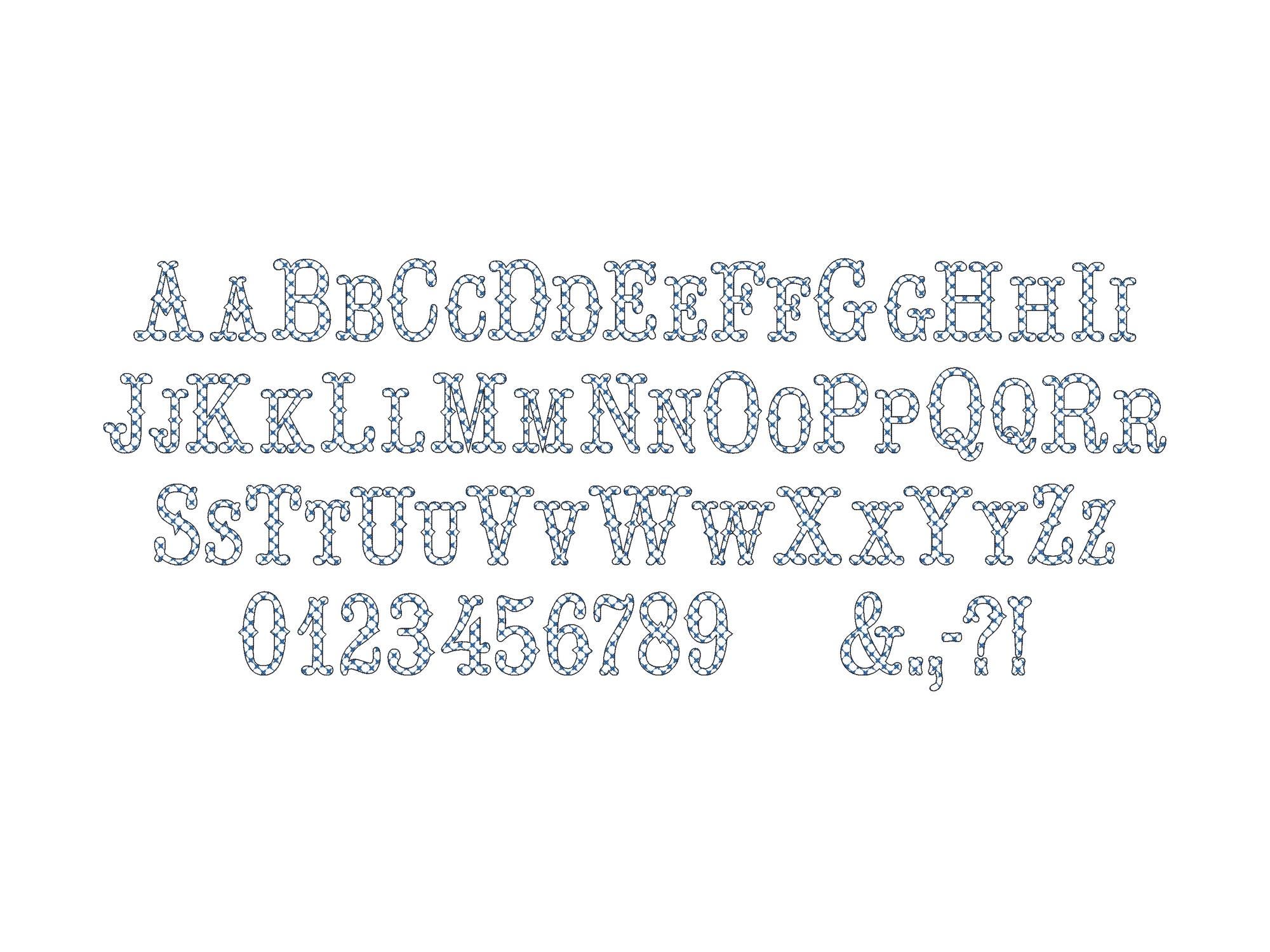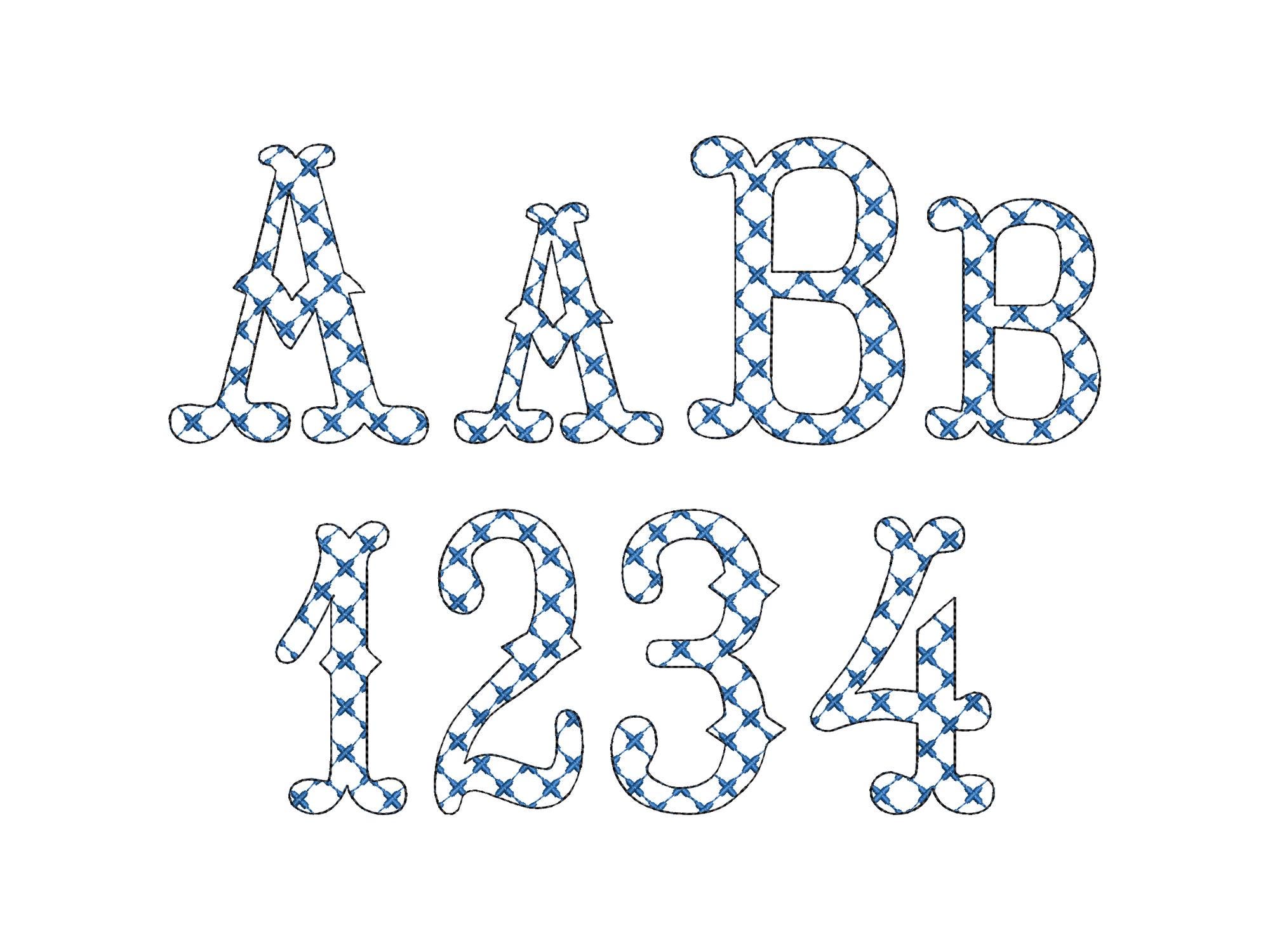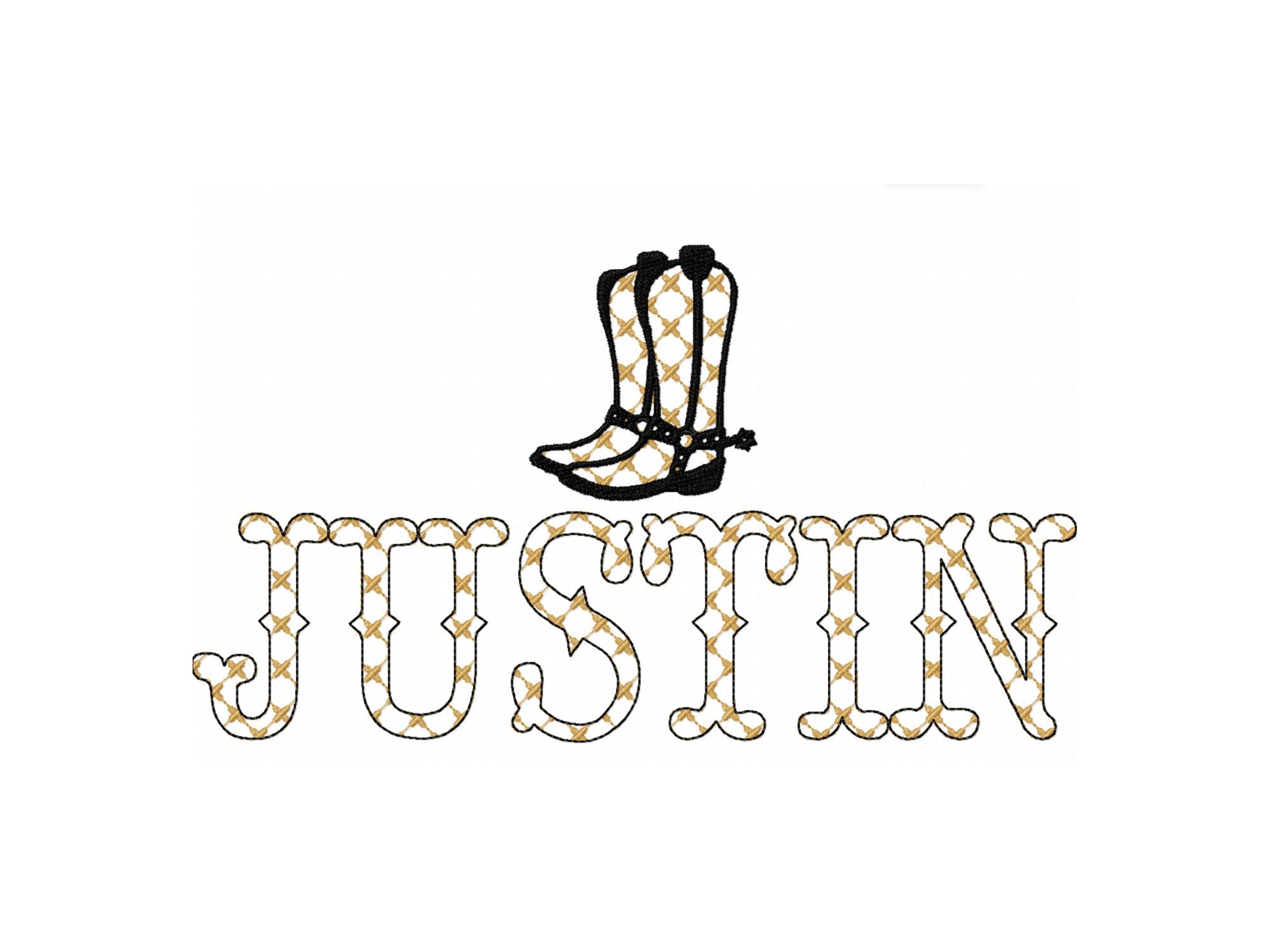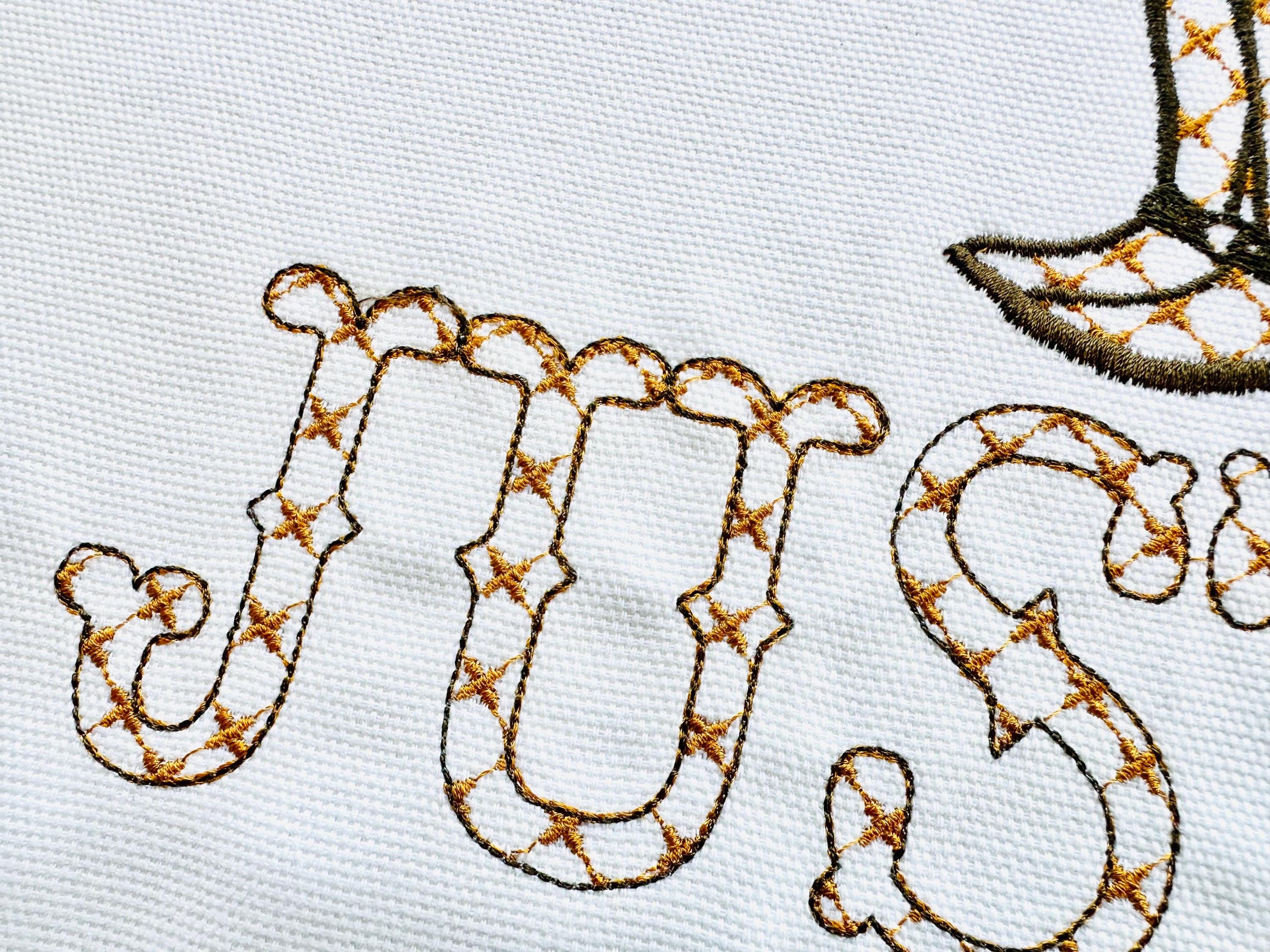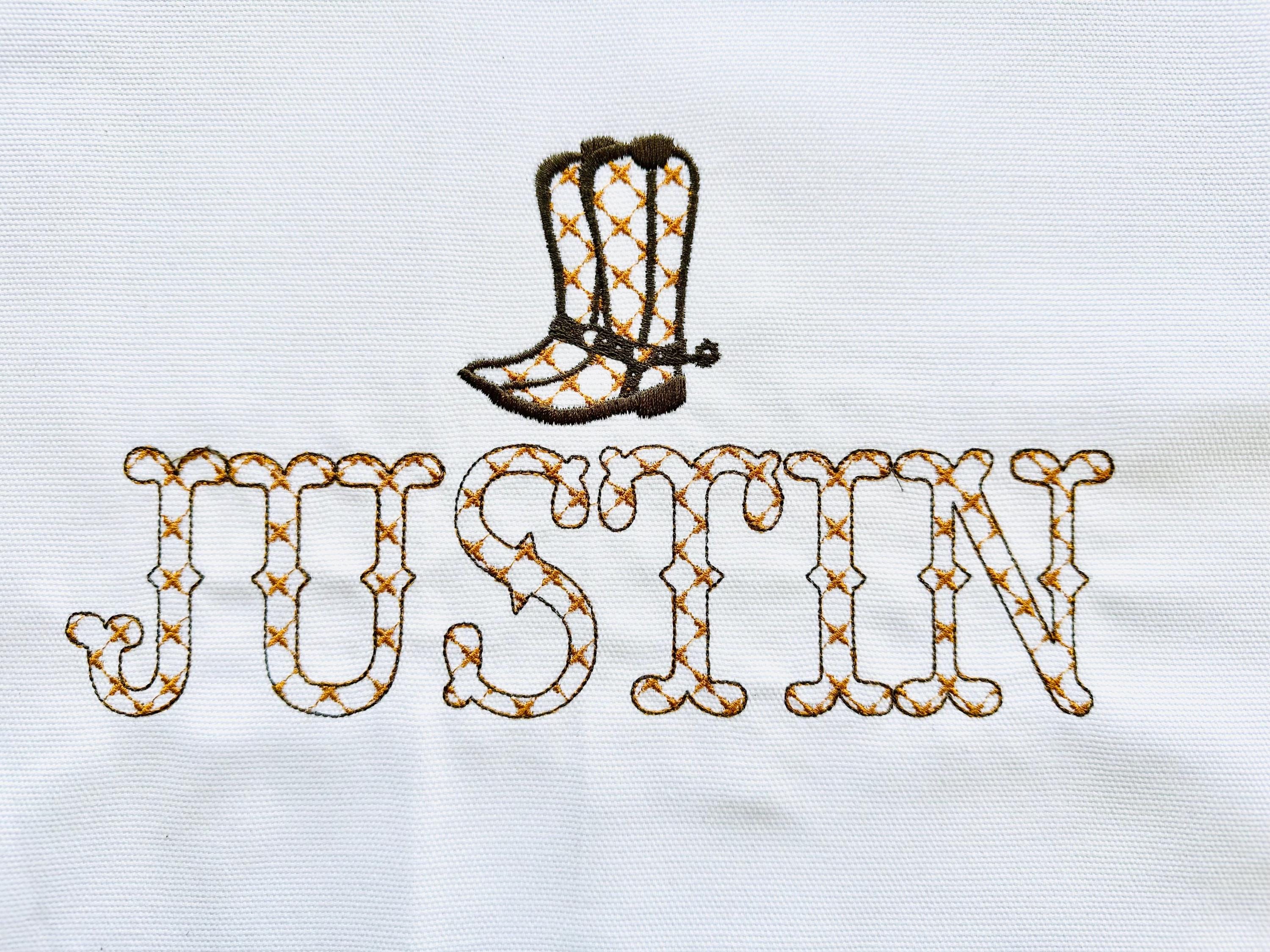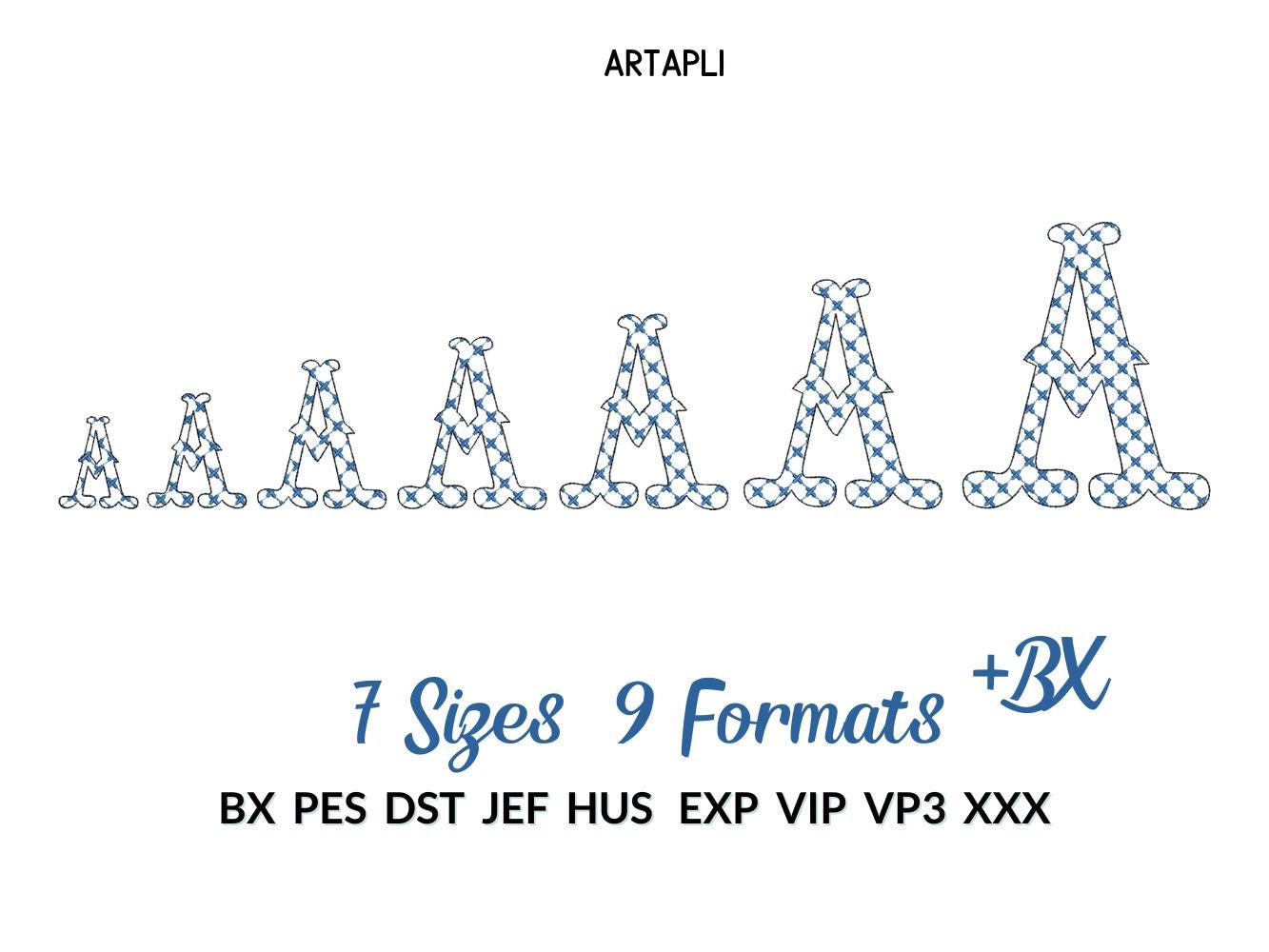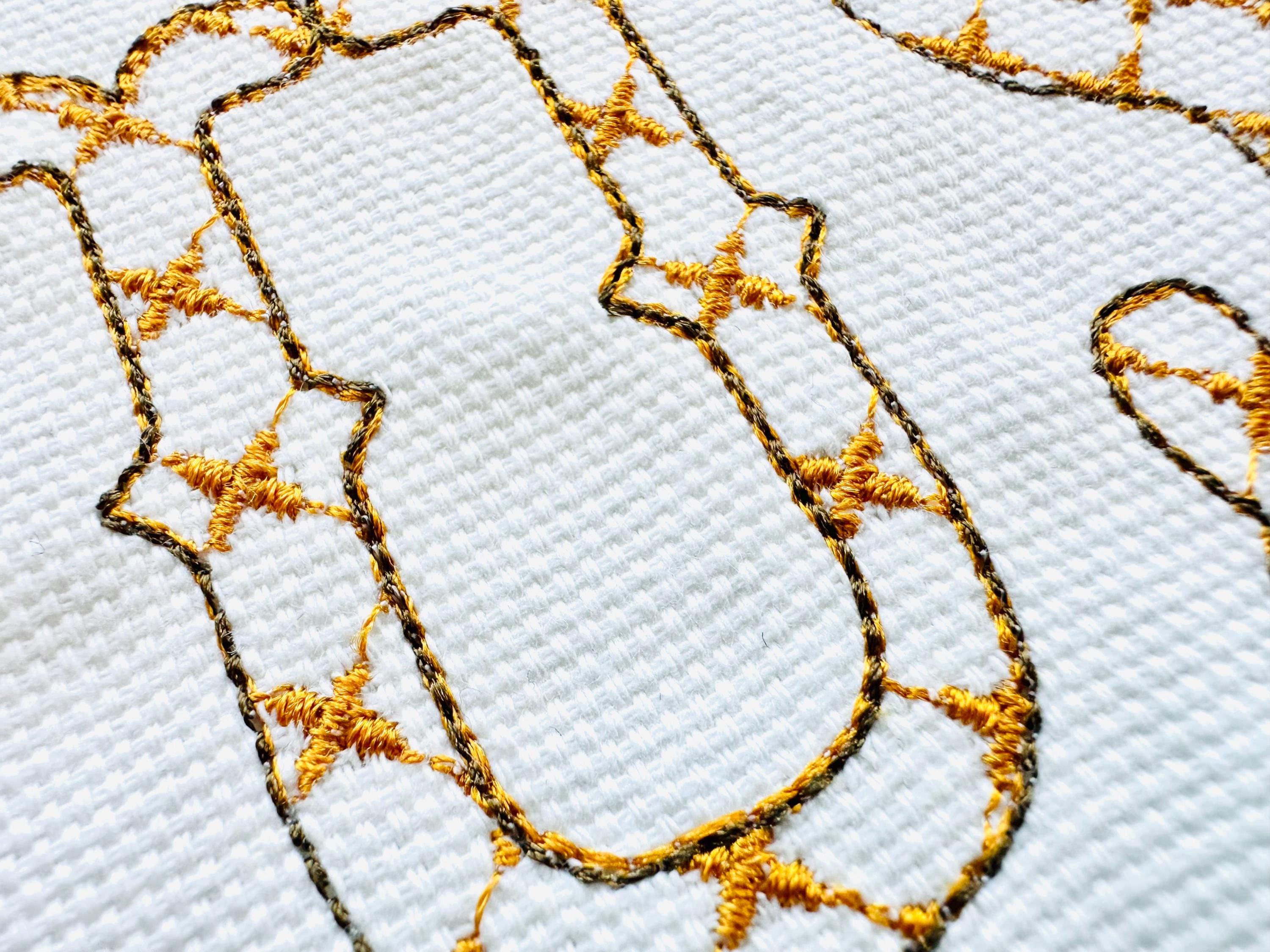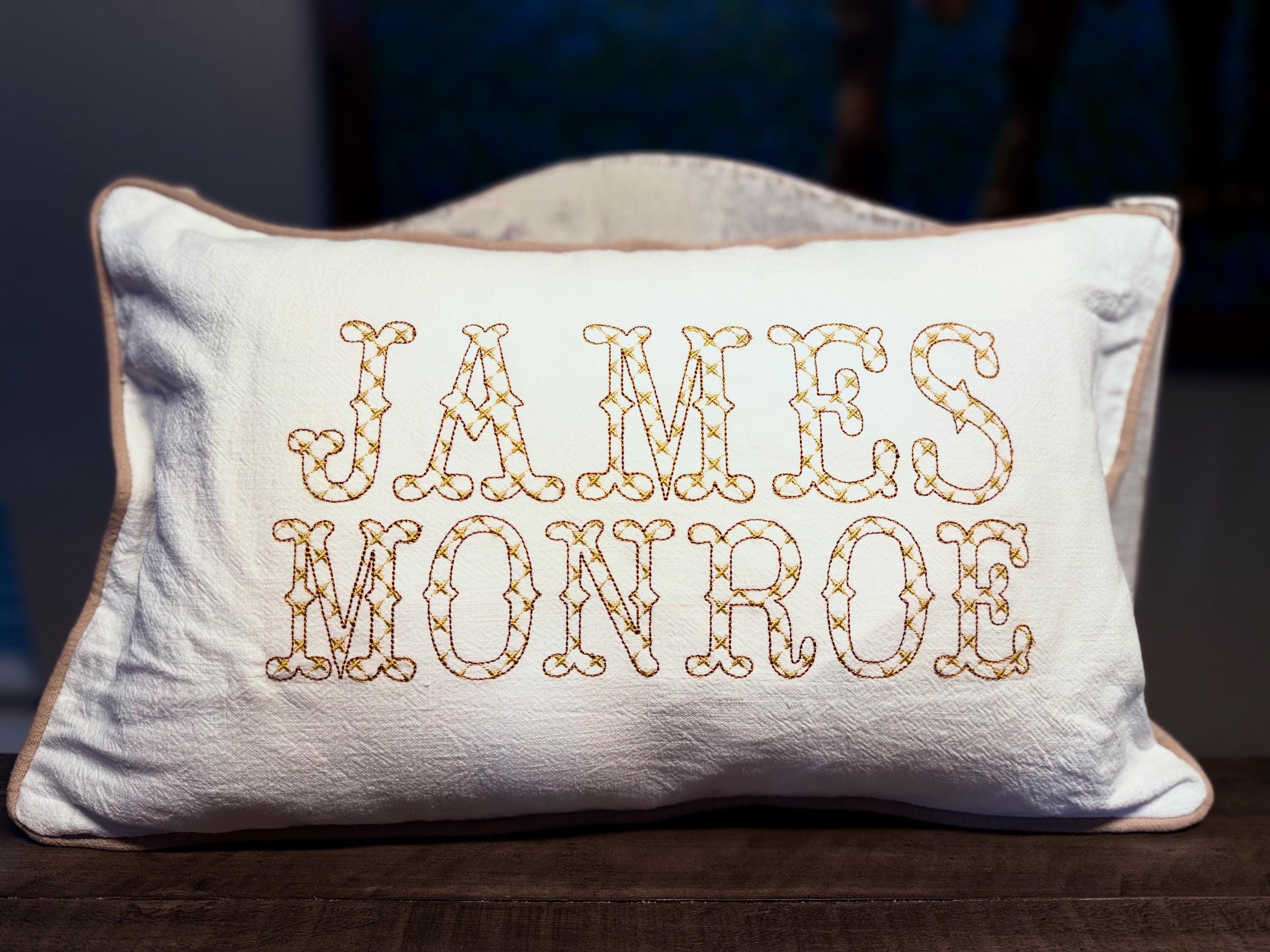
Classy patterned Font monogram Western alphabet letters machine embroidery designs farm cowboy fishtail font uppercase numbers BX
Uppercase and lowercase letters, numbers, and punctuation.
This is a quick stitch design, looks like lace, and the background fabric looks through. Stunning effect!
The pattern inside the letters is a part of the embroidery.